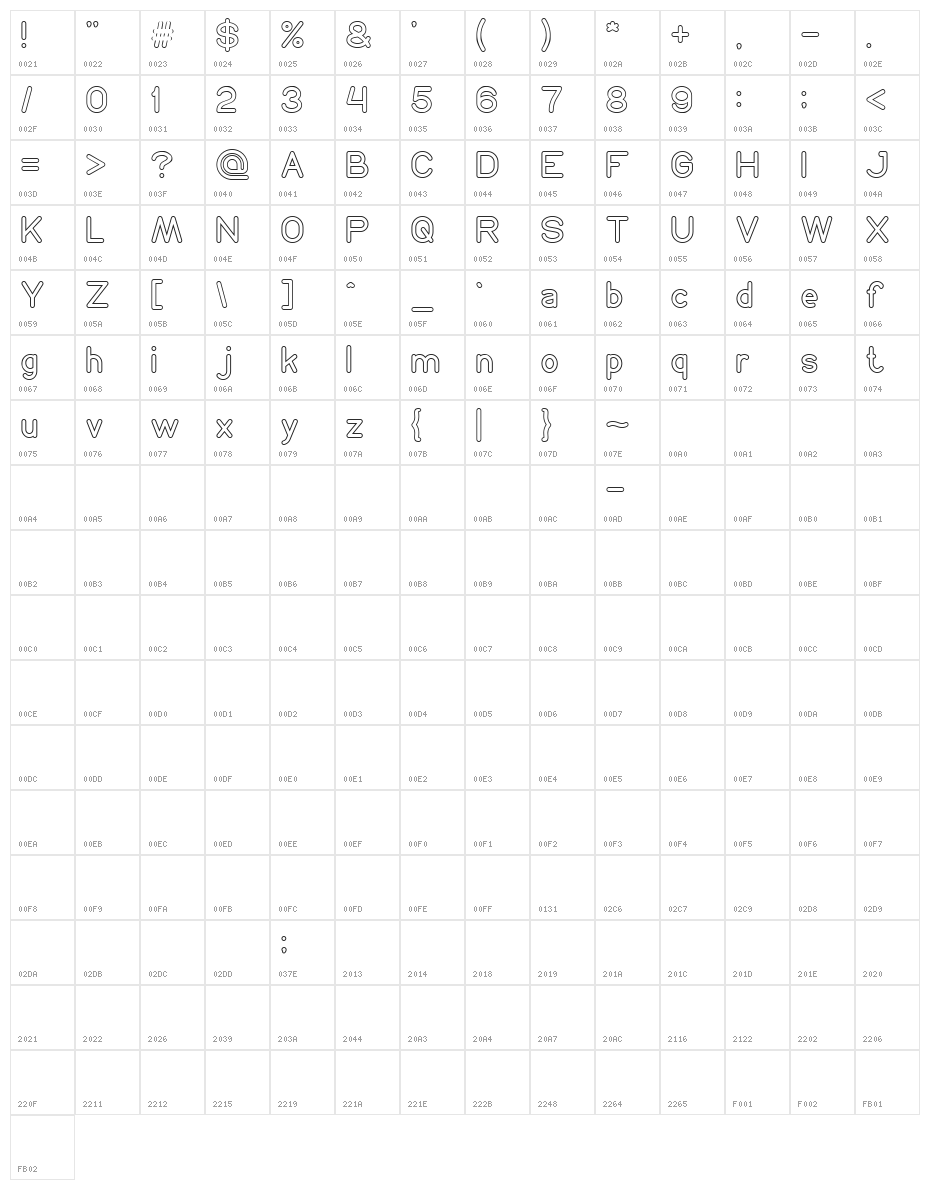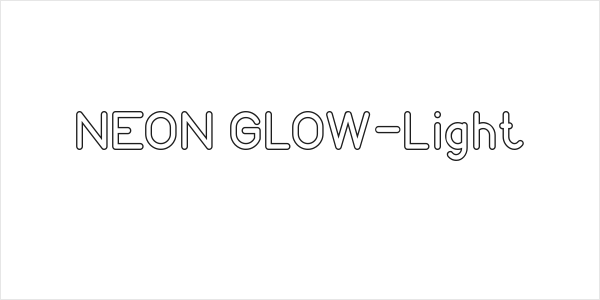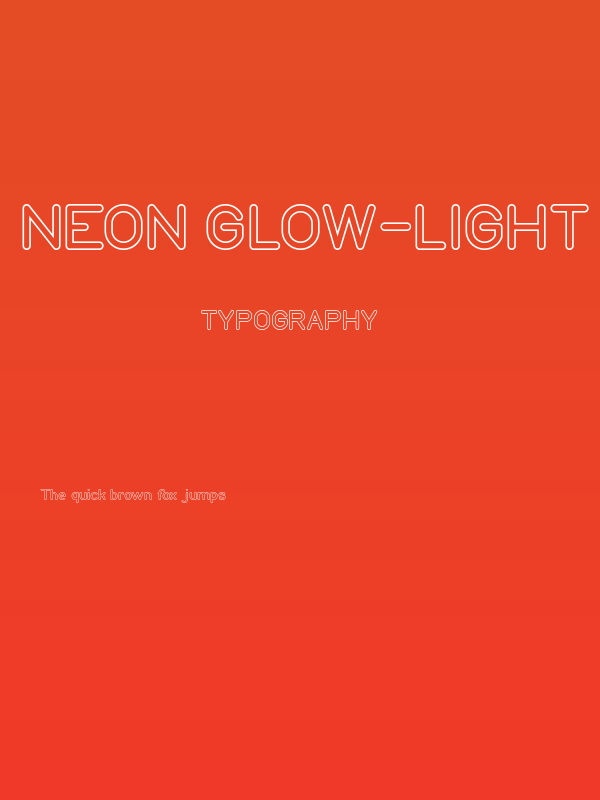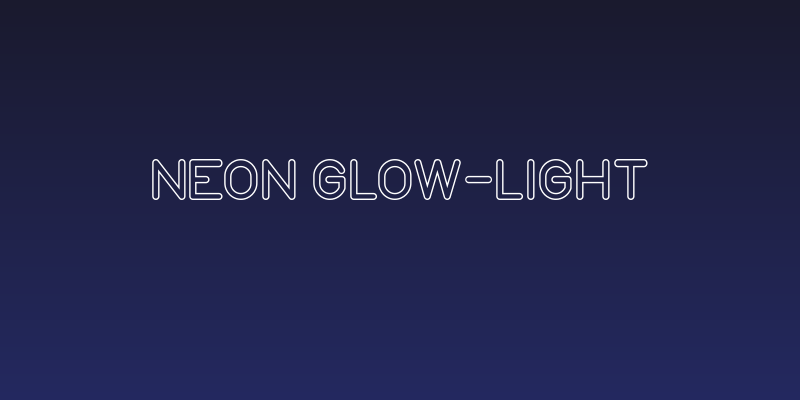
NEON GLOW-Light Font
NEON GLOW-Light Description
This font features a modern, neon-inspired design with a hollow outline style that mimics the appearance of glowing neon lights. The characters are evenly spaced and maintain a consistent line thickness, creating a clean and futuristic look. The uppercase and lowercase letters are well-proportioned, and the numerals are distinct and easy to read. Special characters are included, adding versatility to the font. Its unique style makes it ideal for projects that require a contemporary and eye-catching aesthetic.
| Proposed Projects | Ideal for signage, digital art, event posters, and branding that requires a modern and eye-catching aesthetic. |